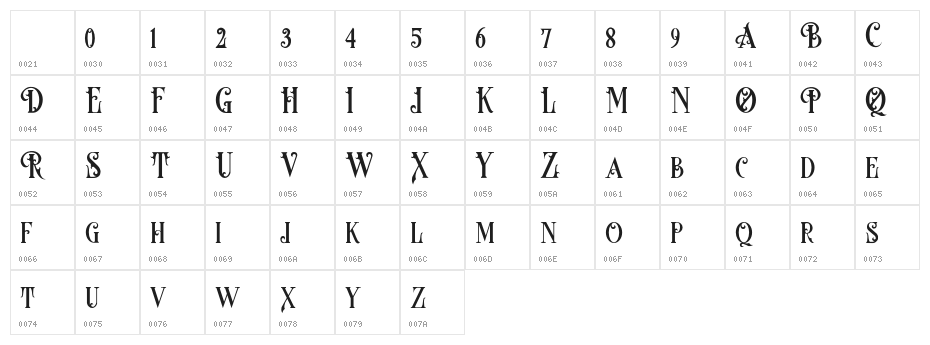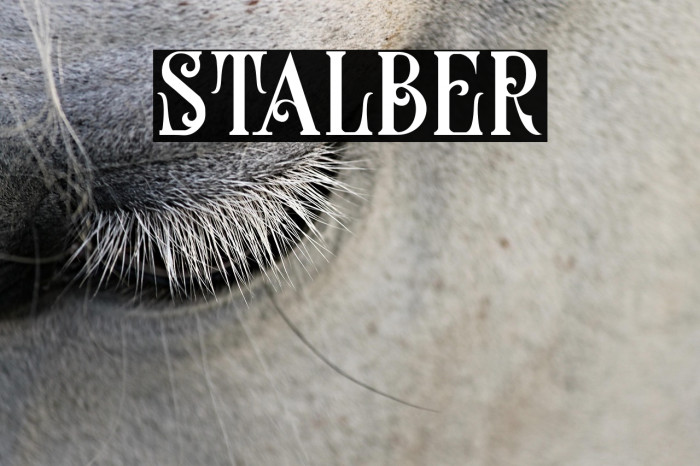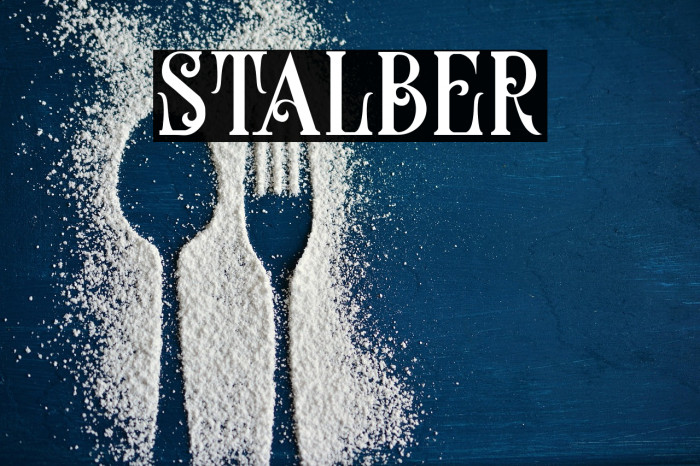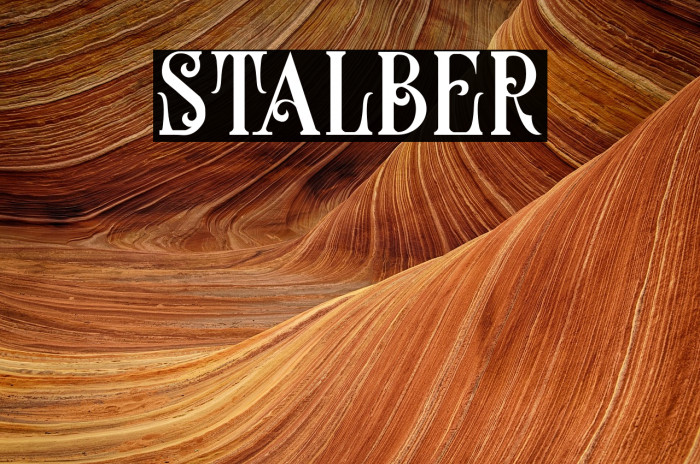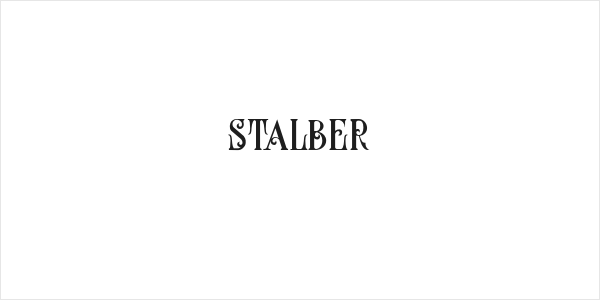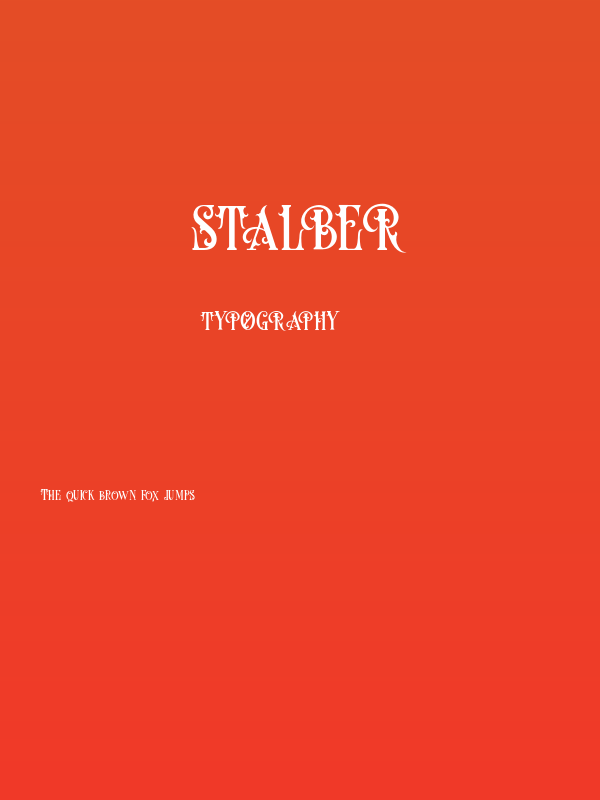
stalber Font
stalber Description
This font features a decorative and ornate style, characterized by its intricate serifs and flourishes. The uppercase letters exhibit a bold presence with unique embellishments that give each character a distinct personality. The lowercase letters maintain a consistent style, complementing the uppercase with their own subtle curves and details. Numerals are designed to match the overall aesthetic, ensuring a cohesive look across all characters. The font's artistic flair makes it suitable for projects that require a touch of elegance and sophistication.
| Overall Style | Vintage |
| Use Case | Logos, Headlines, Decorative text |
| Proposed Projects | Ideal for wedding invitations, luxury branding, vintage posters, and artistic book covers. |